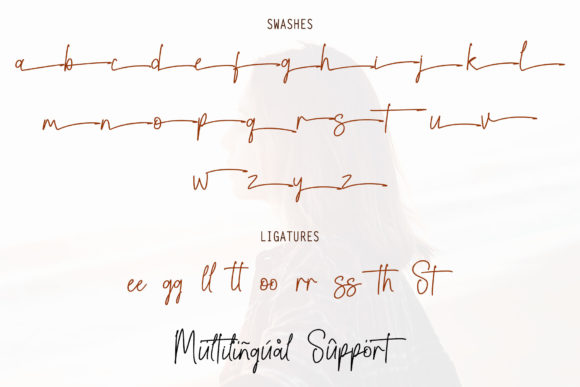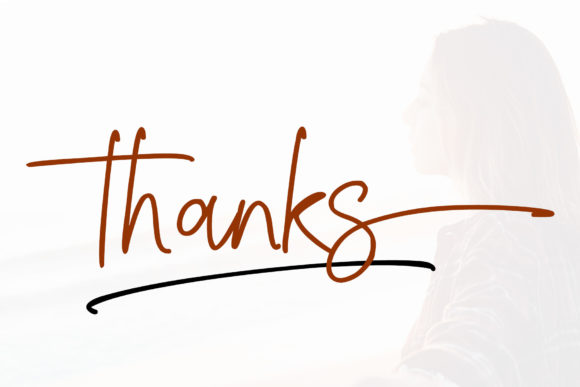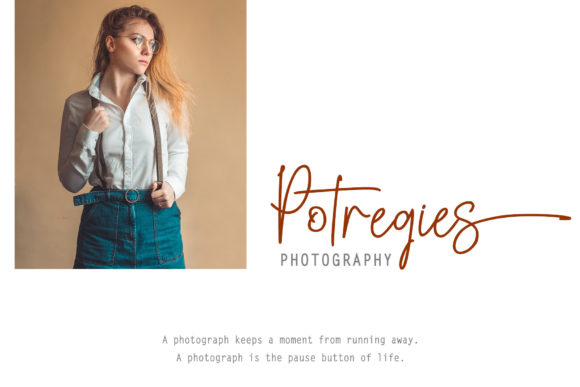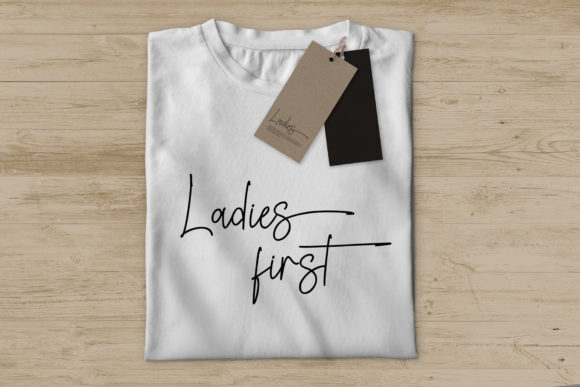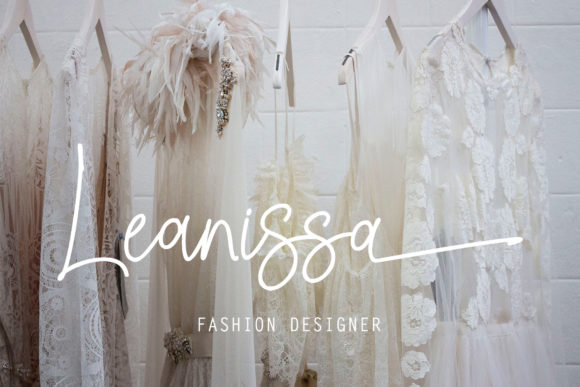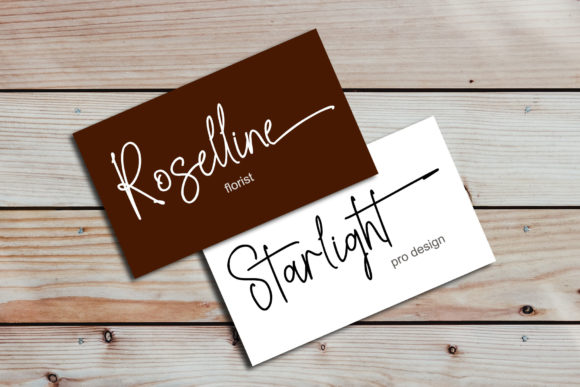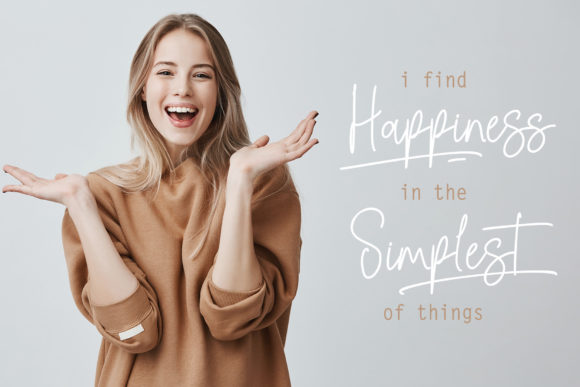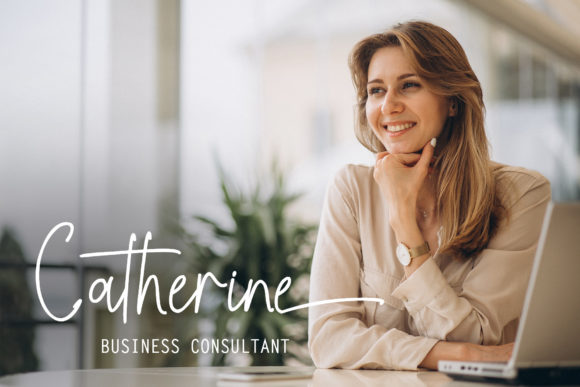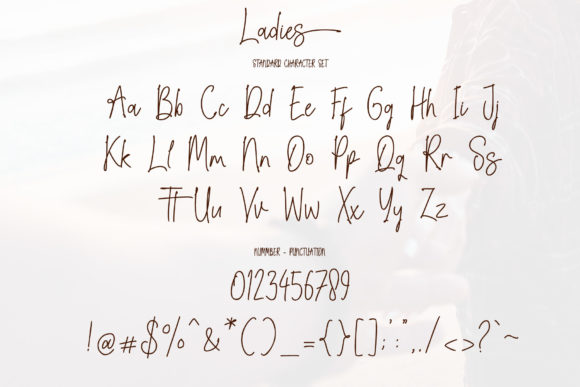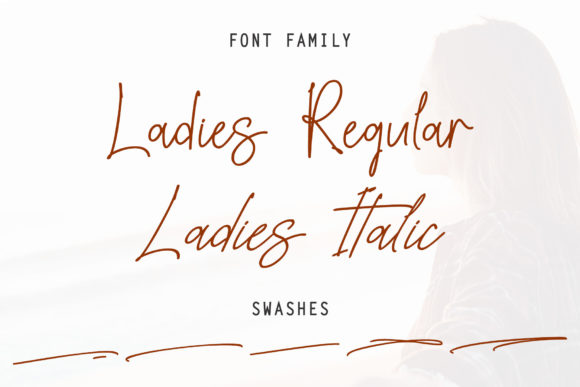
Ladies Font
About Ladies Font
Ladies is a gorgeous yet thin and simple handwritten font. This font is PUA encoded which means you can access all of the glyphs and swashes with ease! Ladies will add a luxury spark to any design project that you wish to create!